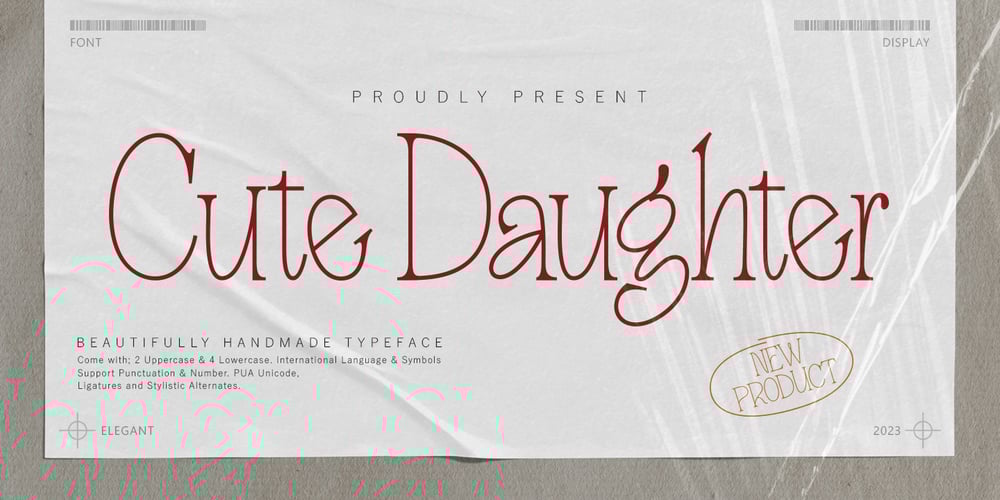
Cute Daughter Font Family was designed by Jamaluddin and published by Jamalodin. Cute Daughter contains 1 styles and family package options. Cute Daughter is a beautiful serif font that is suitable for branding, wedding invitations, greeting cards, posters, name card, quotes, blog header, logo, fashion, apparel, letter, stationery and other projects. Come with Uppercase (2 style) & Lowercase (4 style), International Language & Symbols Support Punctuation & Number and PUA Unicode. Thanks for your visit.